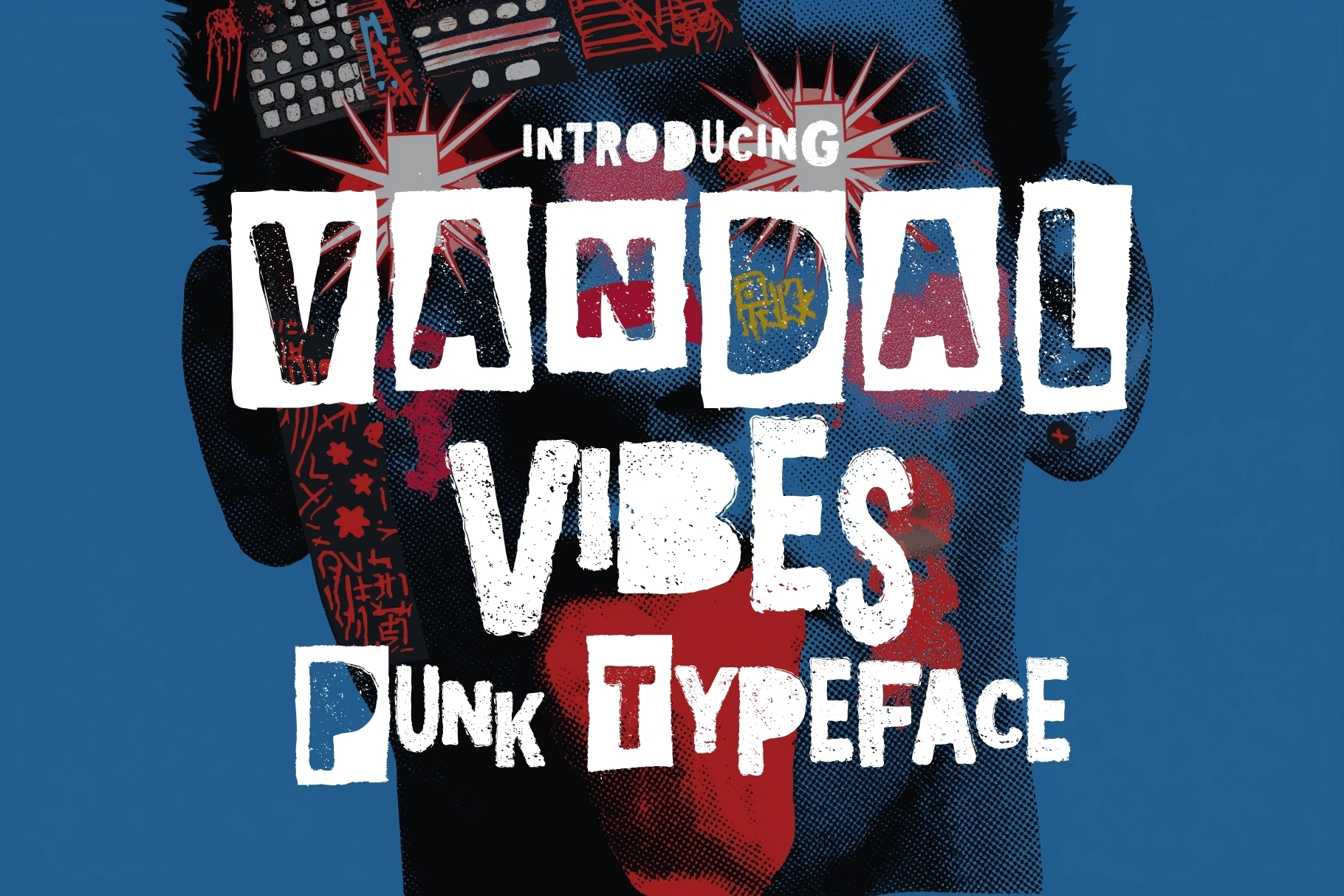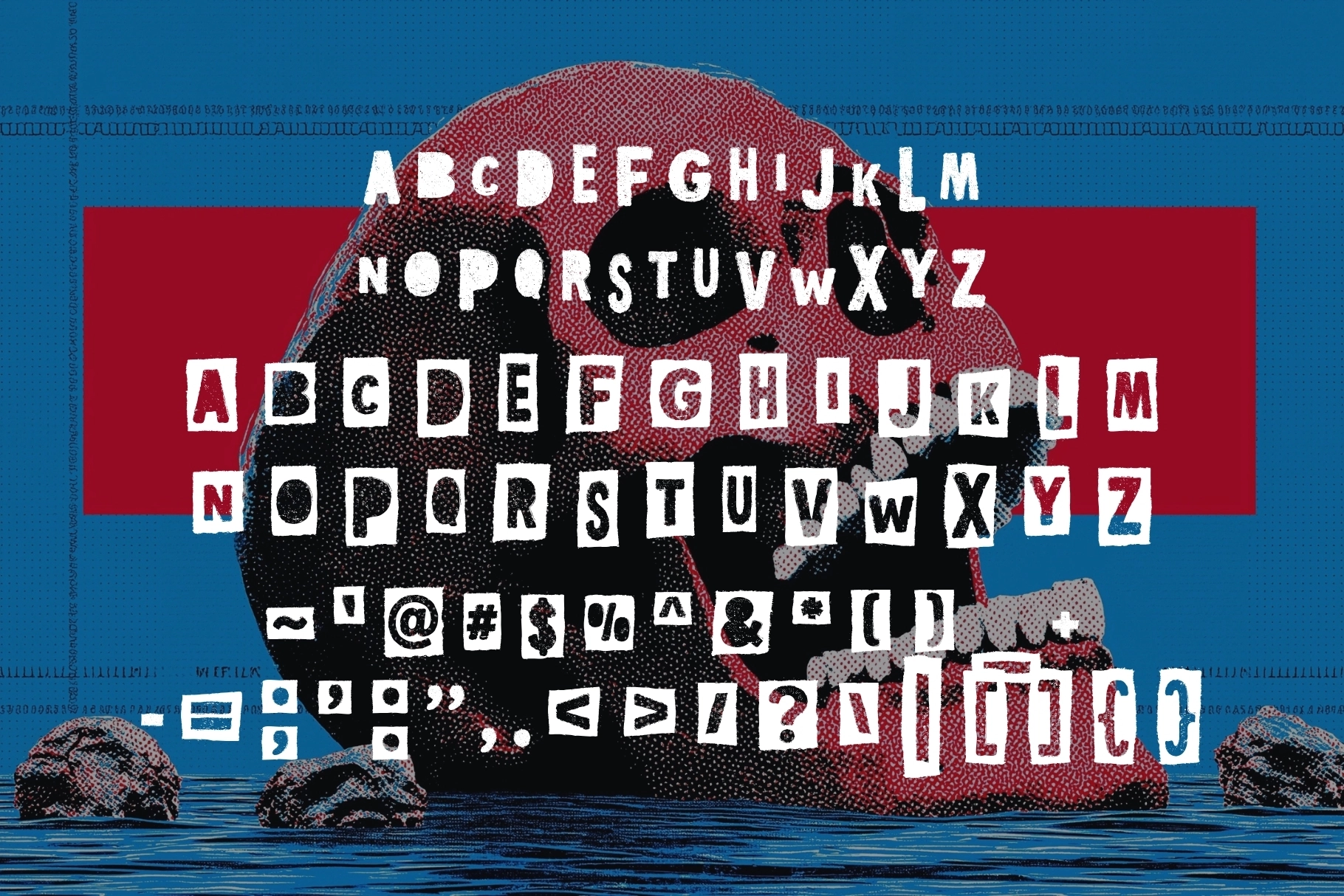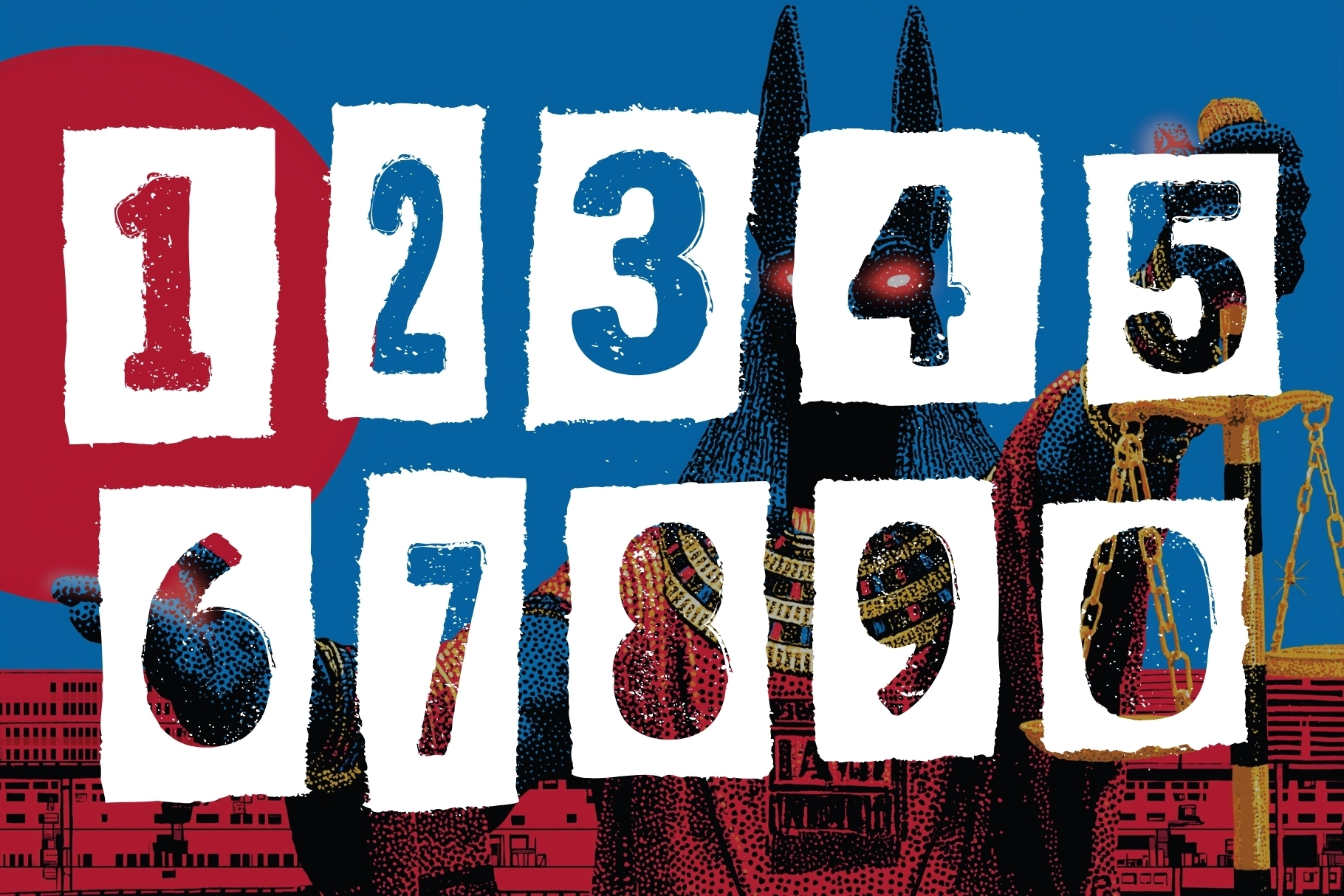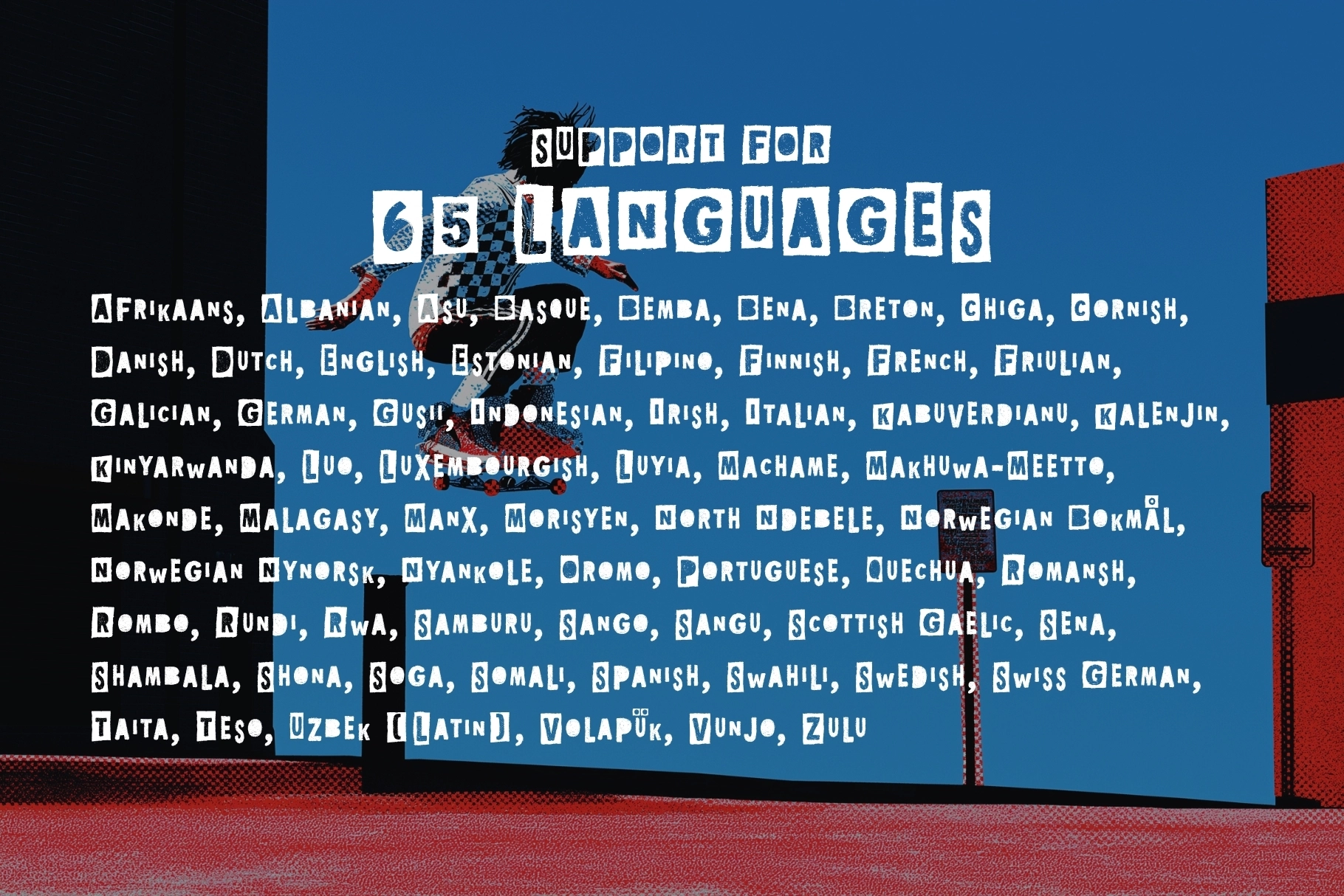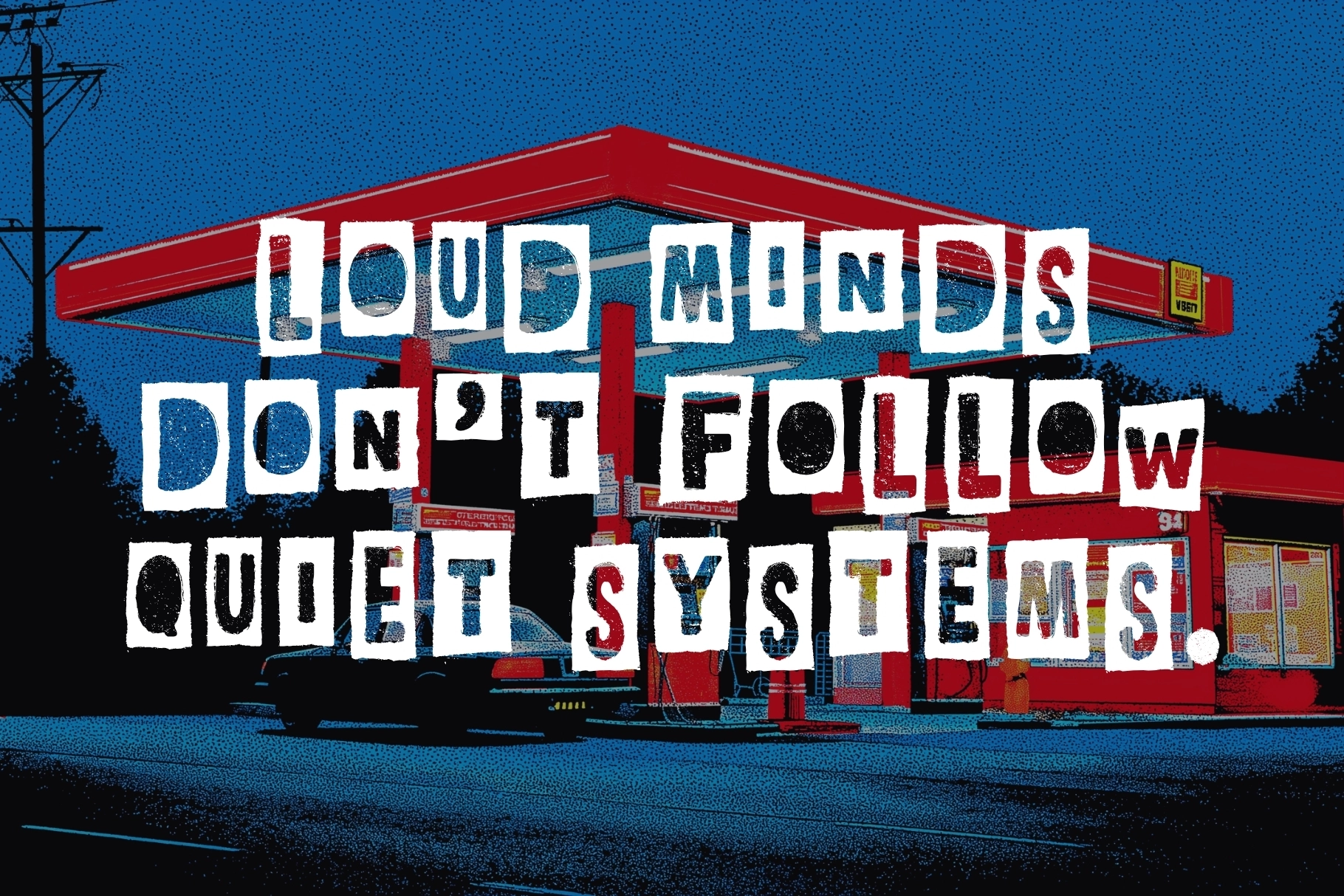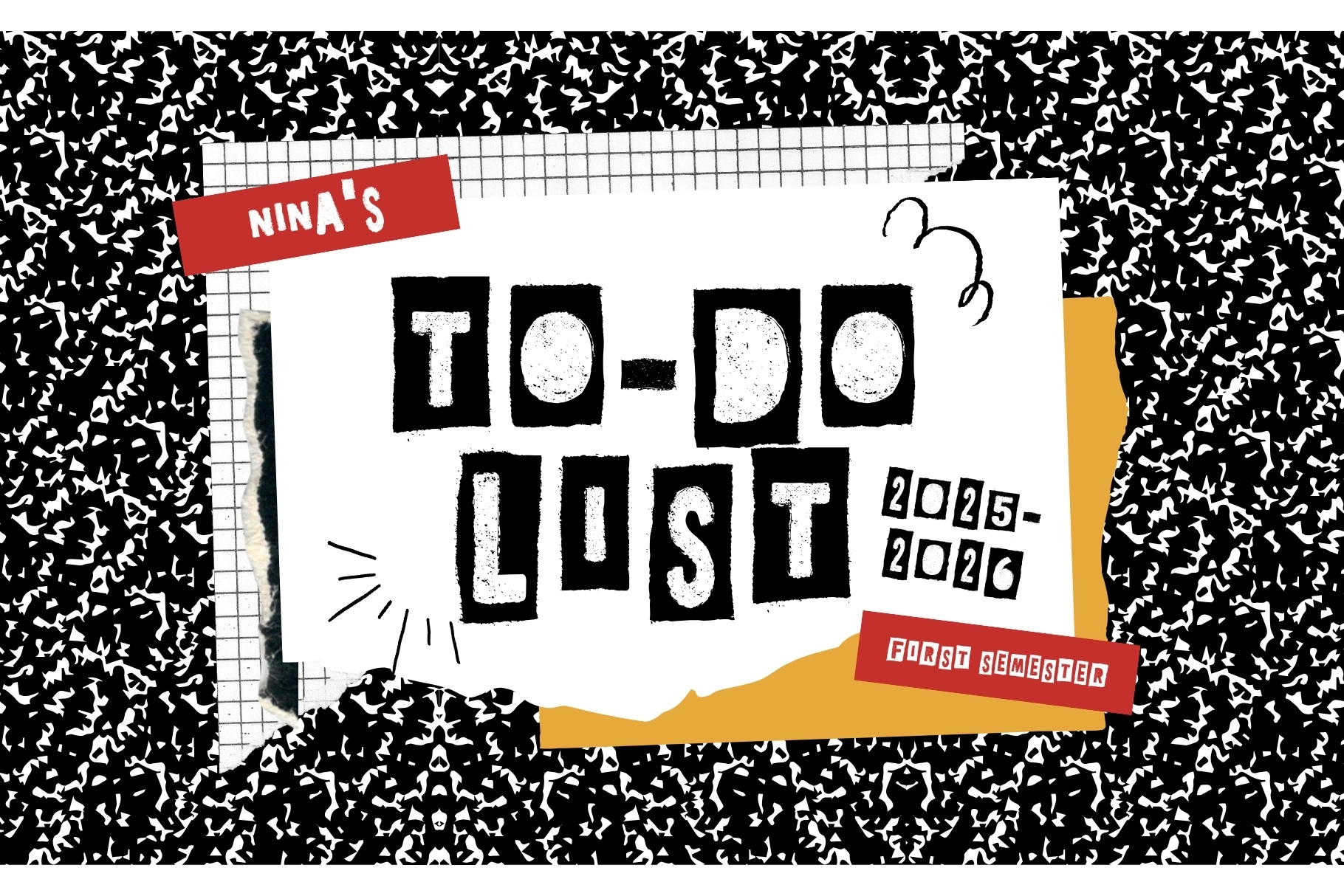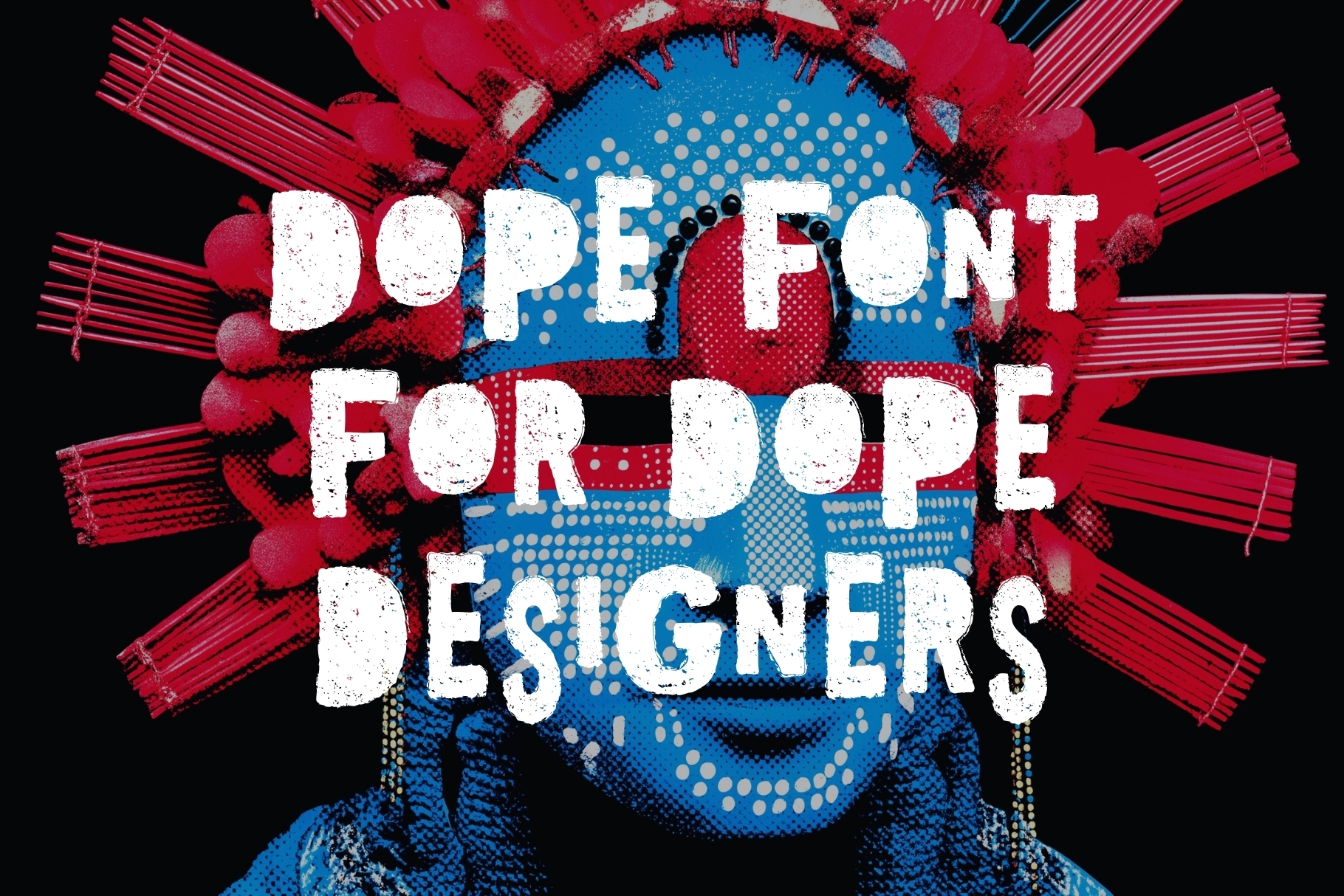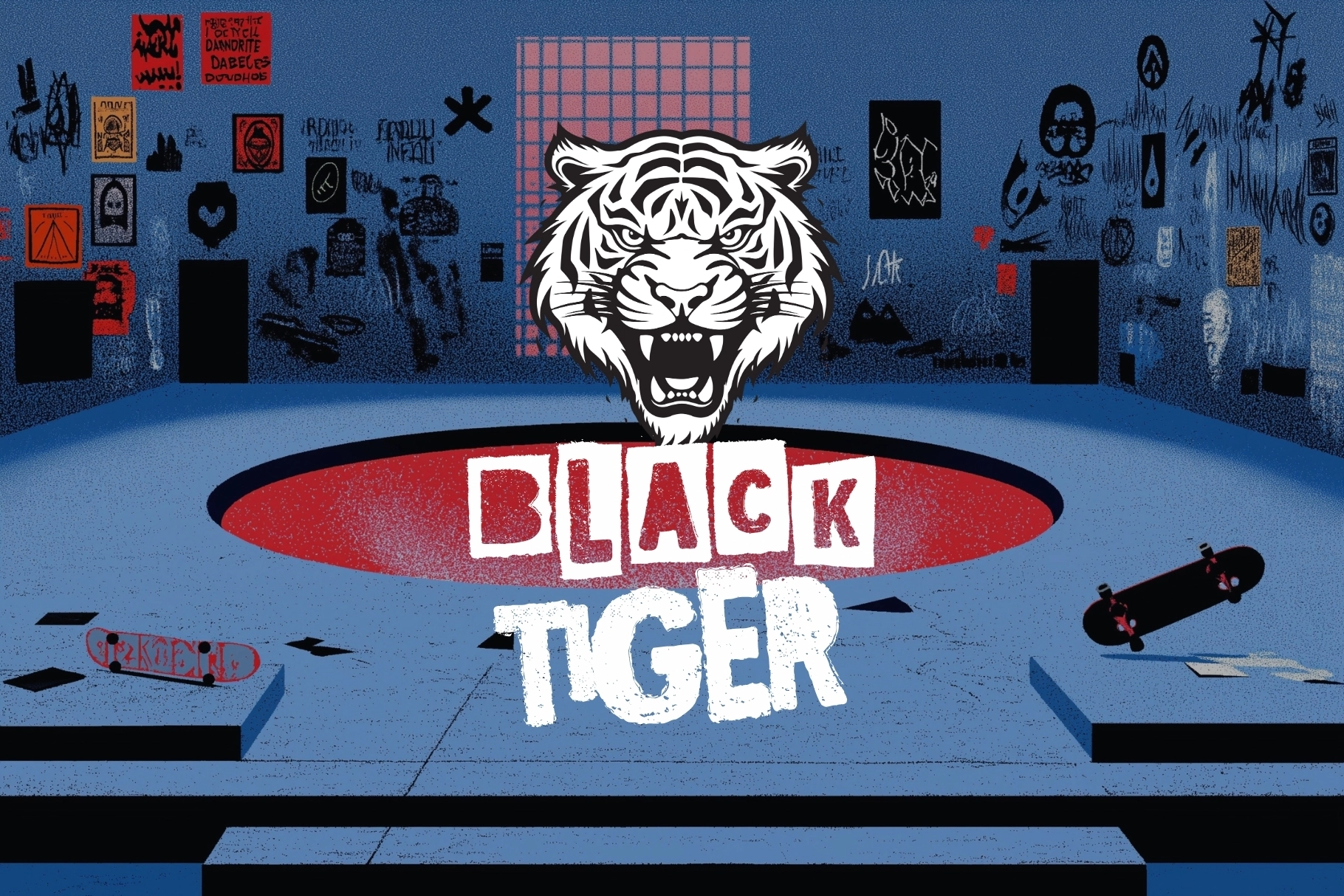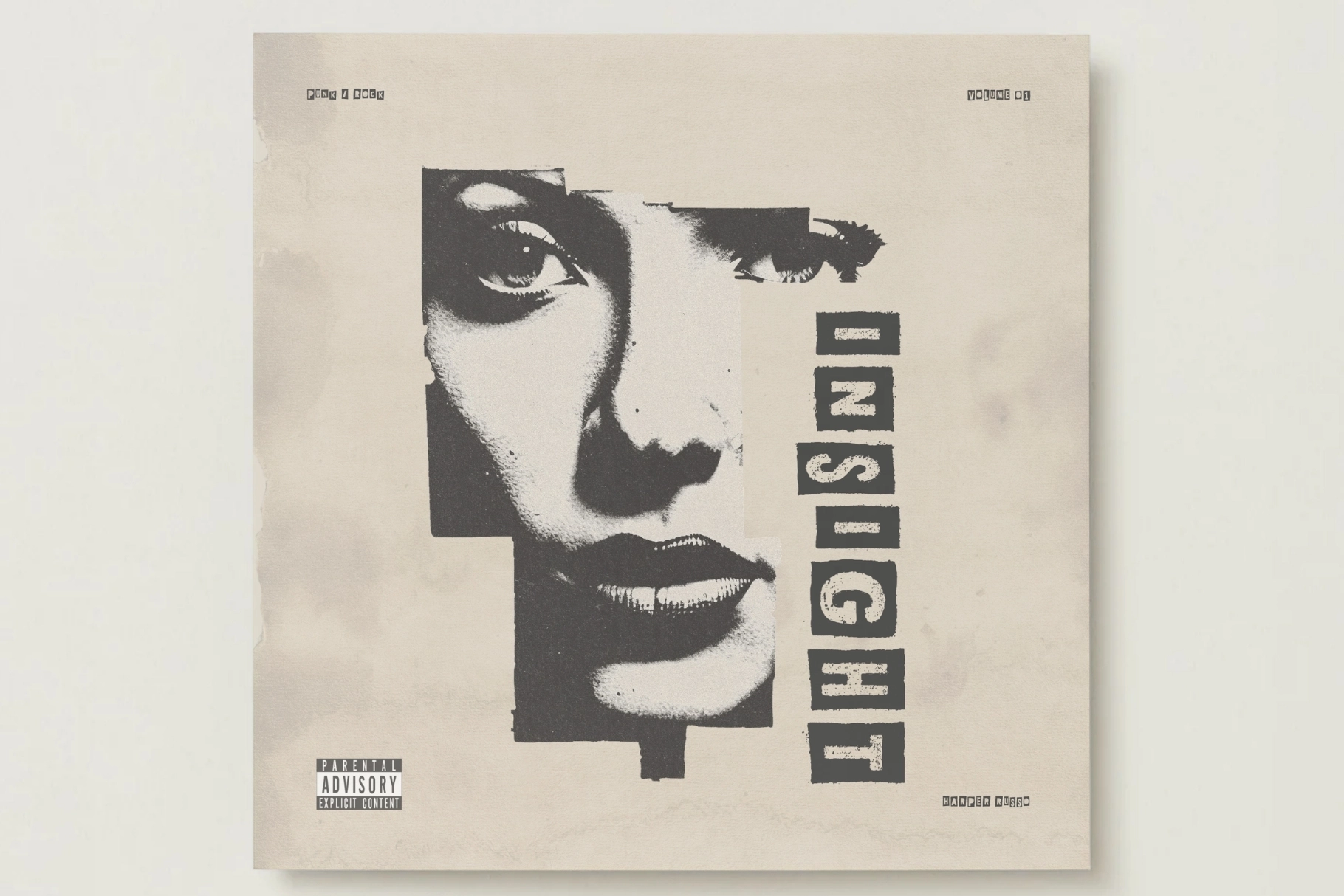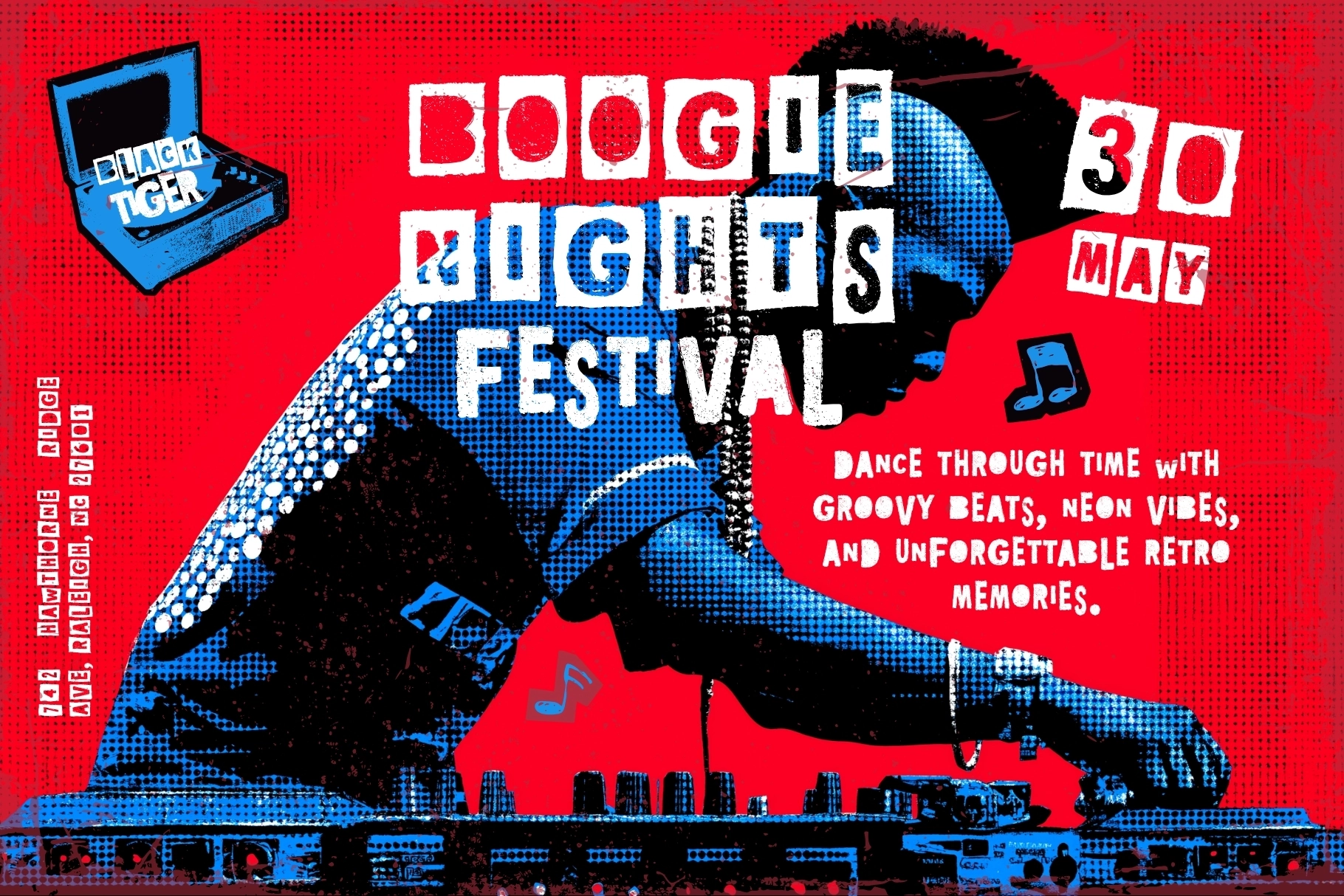
Vandal Vibes - Punk Cutout Display Font
Vandal Vibes
This punk typeface is loud, rough-cut, and wired for visual trouble. Its ransom-note structure mixes torn paper blocks, uneven silhouettes, stamped texture, and scrappy letter shapes for typography that looks assembled with scissors, glue, and zero patience for polish.
Use Vandal Vibes for gig posters, album covers, zines, protest graphics, skate merch, streetwear prints, underground event flyers, collage artwork, editorial headlines, packaging, stickers, social media drops, club visuals, and more. The clean and textured styles give room for both bold readability and proper basement-show chaos.
- Uppercase and lowercase letters
- Numbers and punctuation
- Cutout collage aesthetic